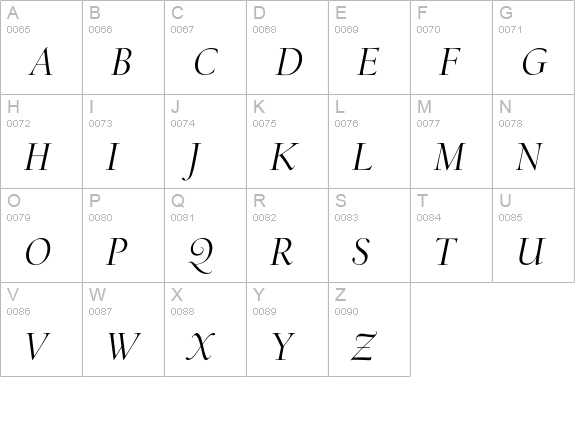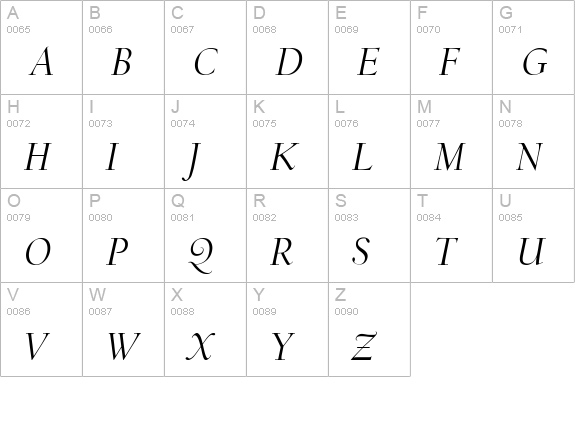
CalifornianDisplay-Italic Font Details
CalifornianDisplay-Italic is a distinctive, italic variant in the CalifornianDisplay typeface family \xE2\x80\x94 well suited to design and typography projects.
CalifornianDisplay-Italic font is a stylish and elegant typeface that exudes sophistication and charm. With its slanted italic design, this font adds a touch of flair to any project or design application. The sleek curves and graceful lines of CalifornianDisplay-Italic make it perfect for conveying a sense of luxury and refinement. Best of all, CalifornianDisplay-Italic font is available for free download at FontsMarket.com. Whether you're working on a branding project, creating invitations, or designing a website, this versatile font will elevate your work to the next level. Don't miss out on the opportunity to add CalifornianDisplay-Italic to your font collection today!